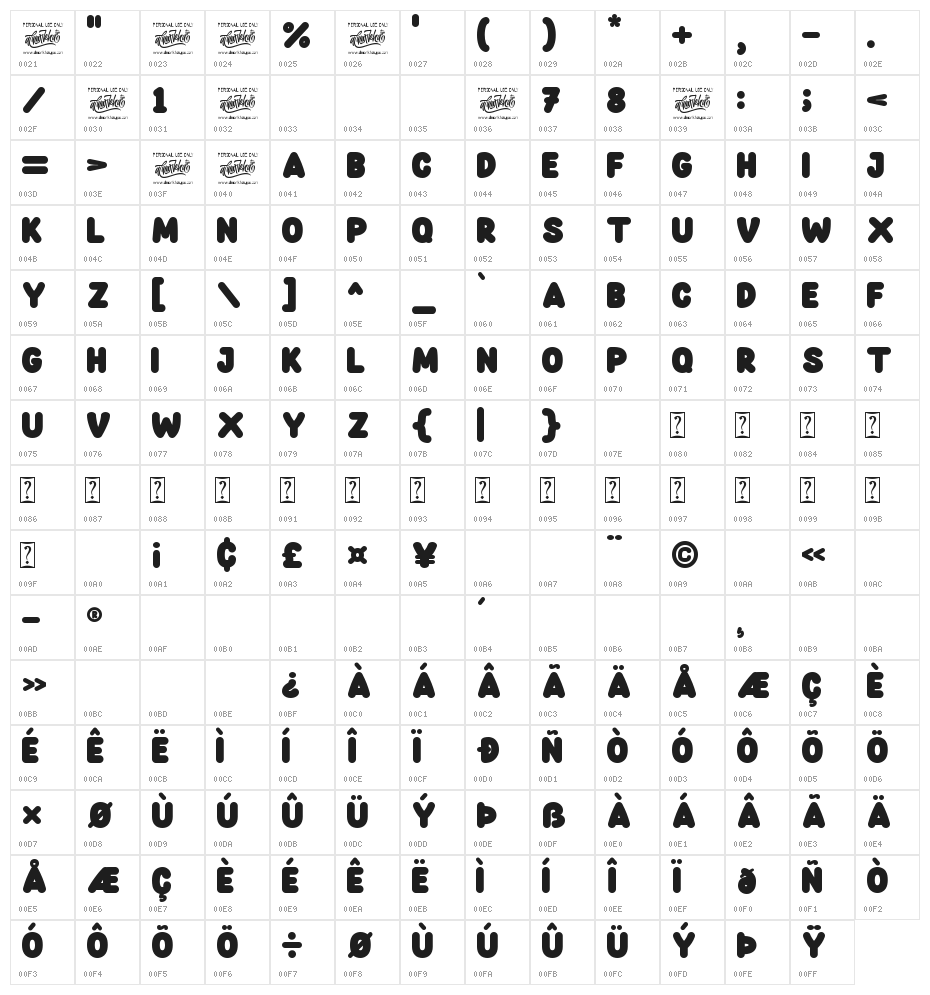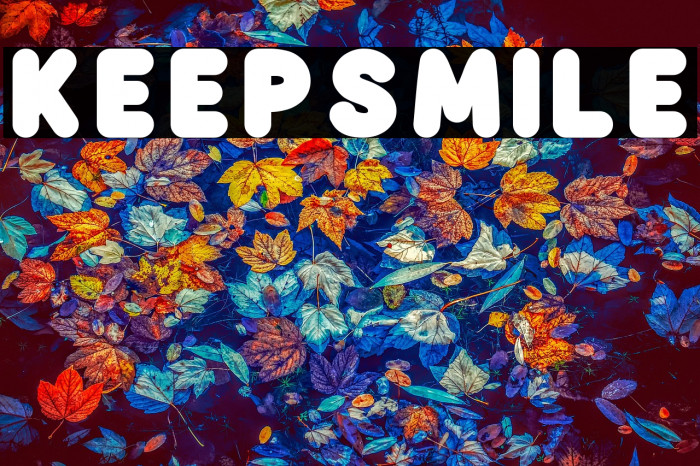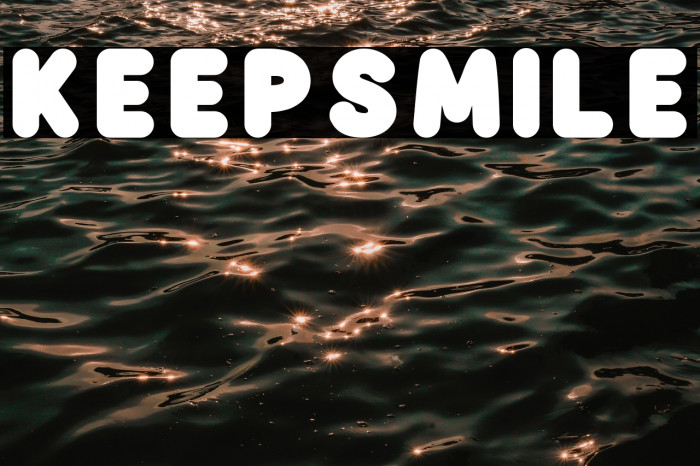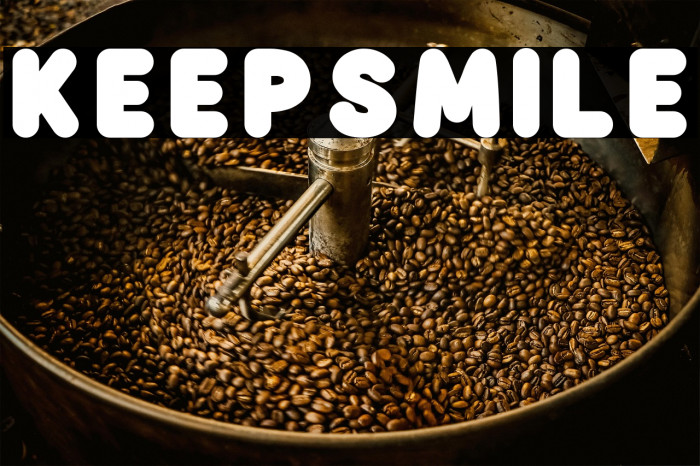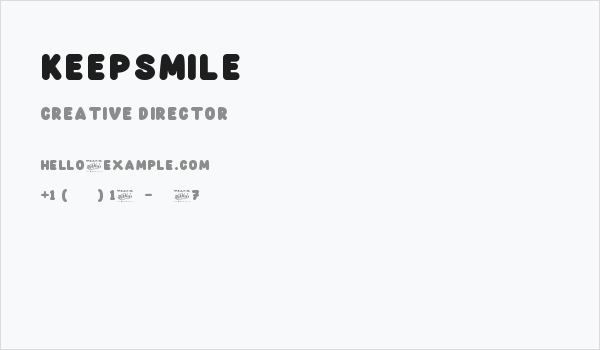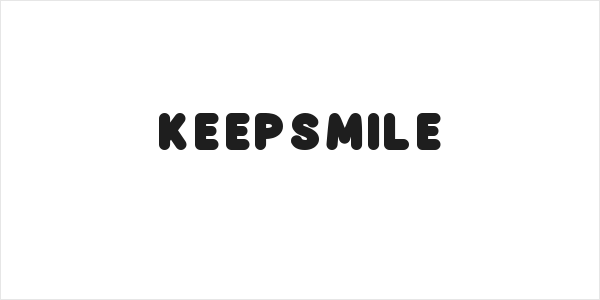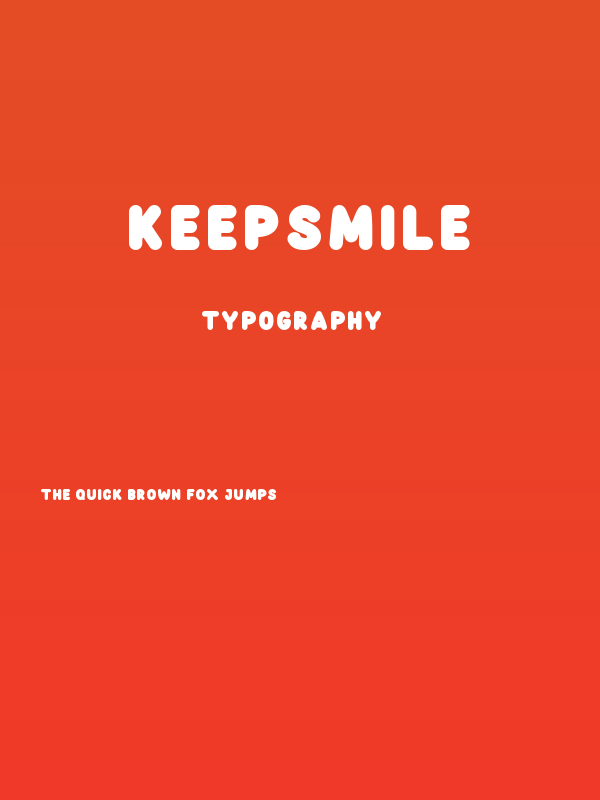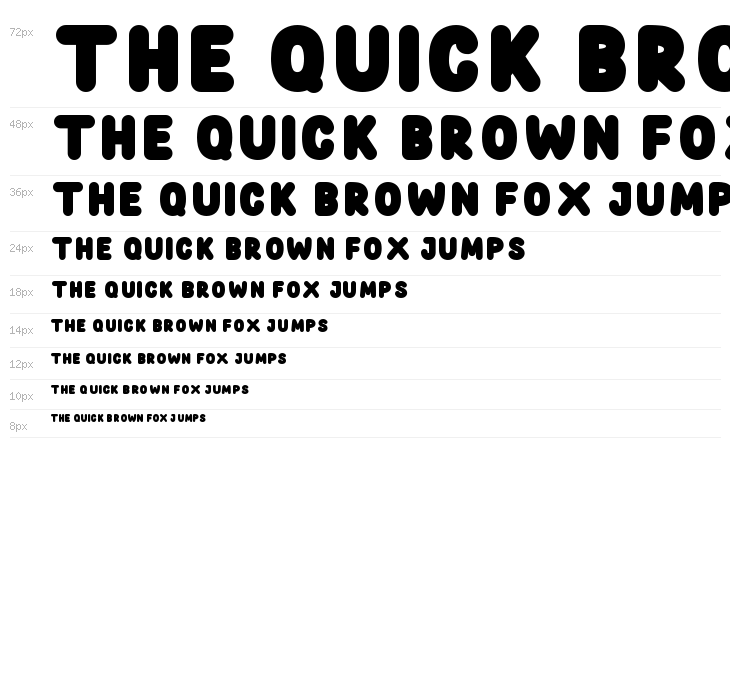
Keepsmile Font
Keepsmile Description
This font features bold, rounded characters with a playful and friendly appearance. The letters are thick and have a uniform stroke width, creating a cohesive and approachable look. The rounded edges soften the overall feel, making it suitable for casual and informal designs. The numbers and special characters maintain the same style, ensuring consistency across all elements. This font is ideal for projects that require a fun and inviting aesthetic.
Overall StylePlayful
Proposed ProjectsIdeal for children's books, playful branding, casual invitations, and fun social media graphics.